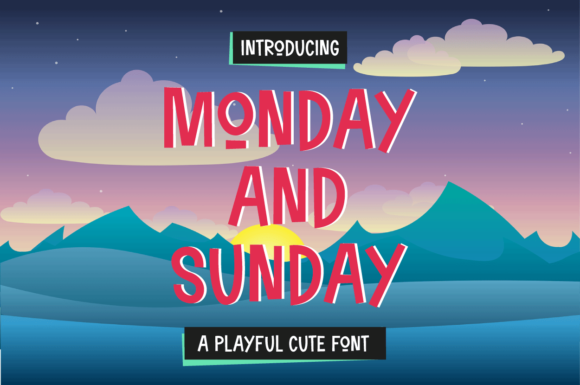
Dive into the enchanting world of Sunday and Monday, a display font family that will inject a touch of whimsy and charm into your designs. Step into a realm where every letter exudes playfulness, inviting you to unleash your creativity and enchant your audience.
Crafted with the utmost care by Soegih Artwork, this font duo embodies the essence of Sunday's carefree spirit and Monday's gentle optimism. Its playful curves and adorable strokes dance across the page, evoking a sense of joy and wonder that will captivate all who encounter it.
Sunday and Monday is not just a font; it's a gateway to a world where imagination takes flight. Whether you're crafting enchanting children's books, designing whimsical posters, or creating eye-catching brand logos, this font will elevate your creations to extraordinary heights.
Imagine your words adorned in the cheerful embrace of Sunday, their playful strokes adding a touch of delight to every message. Envision Monday's comforting presence gracing your headlines, its gentle curves offering a warm and inviting welcome.
With Sunday and Monday, you'll discover a myriad of possibilities. Let your creativity soar as you explore its versatility, from crafting captivating brochure titles to designing vibrant social media graphics. Its charming personality adds a dash of magic to every project, leaving an unforgettable impression on your audience.
Don't settle for ordinary fonts. Embark on an extraordinary journey with Sunday and Monday. Let its whimsical spirit ignite your imagination and create designs that will enchant and inspire.
Welcome to the world of Sunday and Monday, where every character whispers a tale of joy and wonder. Join the adventure and let your creativity bloom.